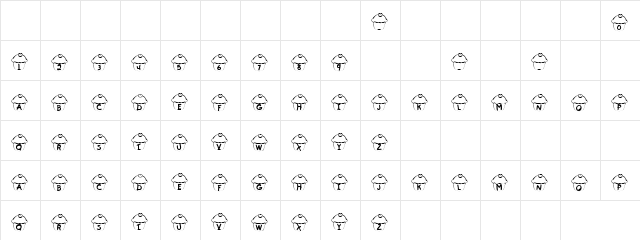
Hot Buttered Man Regular
Design Context for Hot Buttered Man Typeface
Hot Buttered Man is a composed and adaptable typeface that performs quietly and consistently across a wide range of design contexts.
Pro Tip: Use Hot Buttered Man in both headline and body roles to test its range before committing to a single application.